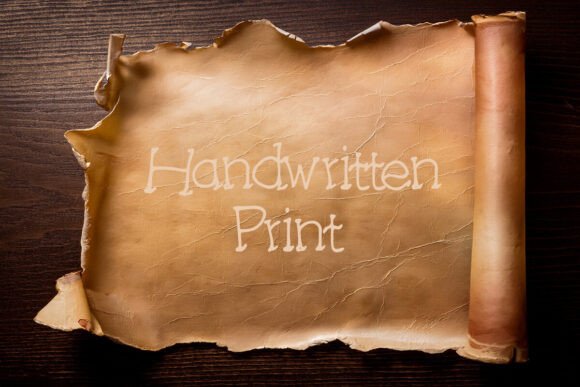
Unleash the Authentic Essence of Creative Expression with Handwritten Print Font
In the realm of creative projects, the right font can make all the difference. It can elevate your work from ordinary to extraordinary, adding a touch of personality and uniqueness that sets it apart. This is where the Handwritten Print font comes into play – a truly unique tool designed to unleash the authentic essence of creative expression. Whether you’re working on fashion apparel, stickers, branding, print media, or digital content, this font is perfectly tailored to bring your projects to life.
Versatility Across Numerous Mediums
One of the standout features of the Handwritten Print font is its versatility. It’s not limited to a single medium or project type; instead, it shines brightly across a wide array of applications. For fashion enthusiasts and designers, this font can add a personal touch to apparel like shirts, making each piece stand out with a unique flair. For those who specialize in stickers and decals, the Handwritten Print font offers a way to create engaging and distinctive designs that capture attention.
Moreover, in the realm of branding, consistency and uniqueness are key. The Handwritten Print font provides a distinctive style that can help set your brand apart, making it more memorable and impactful. Its use in branding materials, such as logos, brochures, and business cards, can significantly enhance your brand’s visual identity.
Dive into the World of Print Media
Print media continues to hold its own in the digital age, offering a tangible and impactful way to connect with audiences. The Handwritten Print font is an excellent choice for anyone looking to breathe life into their print projects. Whether you’re working on magazines, posters, or any other form of print media, this font can add a layer of personality and engagement.
Magazines, with their blend of text and visuals, benefit greatly from the use of distinctive fonts. The Handwritten Print font can be used to create compelling headlines, add quotes, or even section off different parts of an article, making the content more readable and visually appealing. Posters, on the other hand, rely heavily on visual impact. The unique charm of the Handwritten Print font can make your posters stand out, drawing in viewers and effectively communicating your message.
Perfect Companion for SVG Files and Cricut Projects
In the world of cutting-edge crafting and DIY projects, SVG files and Cricut machines have become incredibly popular. The Handwritten Print font serves as a perfect companion for these mediums, amplifying the impact and appeal of your projects. SVG files, which can be cut by machines like Cricut, Silhouette, and others, allow for precise and intricate designs. When paired with the Handwritten Print font, you can create custom vinyl decals, iron-on designs, and paper crafts that are both beautiful and personal.
Cricut projects, ranging from custom signs to personalized gifts, can also benefit greatly from this font. The ability to cut out letters and designs with precision allows for a professional finish that is hard to achieve with standard fonts. Whether you’re making gifts, decorations, or selling your creations, the Handwritten Print font can add that extra special touch.
Personalize Your Greeting Cards and Social Media Posts
In an era dominated by digital communication, there’s still a special place for physical greeting cards and thoughtful messages. The Handwritten Print font offers a way to personalize your greeting cards, making them truly one-of-a-kind. Whether it’s a birthday, anniversary, or just because, a custom greeting card with this unique font can convey your feelings more effectively than a standard card.
In the digital space, social media posts are a primary way to connect with others. However, standing out in a crowded feed can be challenging. The Handwritten Print font can help here too, adding a distinctive flair to your posts that captivates viewers. Whether you’re a business looking to elevate your social media presence or an individual wanting to share personal updates, this font can make your digital content more engaging and memorable.
The Unique Charm of Handwritten Print Font
So, what sets the Handwritten Print font apart from other fonts available? The answer lies in its unique charm – a blend of the personal touch of handwriting with the consistency and clarity of print. This font captures the essence of handwritten text, bringing a sense of warmth and authenticity to your projects. At the same time, it maintains a level of legibility and professionalism that is often lacking in purely handwritten scripts.
This balance makes the Handwritten Print font incredibly versatile and user-friendly. It’s suitable for both personal and professional projects, and its distinctive style ensures that your work stands out. Whether you’re a designer, a DIY enthusiast, or simply someone who loves to create, this font can become a valuable addition to your creative arsenal.
By incorporating the Handwritten Print font into your projects, you’re not just choosing a font; you’re choosing a way to connect with your audience, convey your message, and leave a lasting impression. So, unleash the authentic essence of creative expression with the Handwritten Print font and discover the difference it can make in your work.